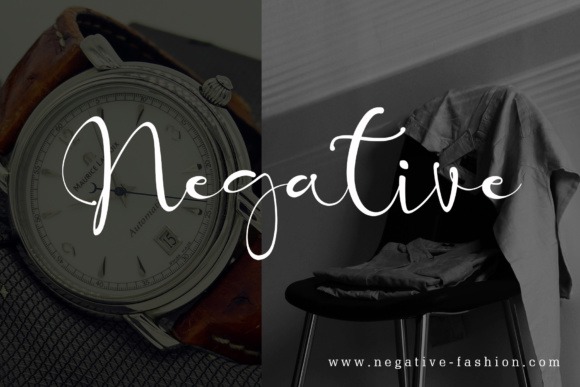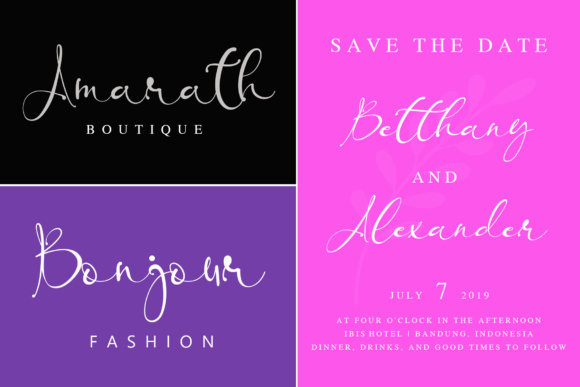
Banggar Font
Banggar Signature is a font with a simple and classy look. Banggar comes in a regular and slant version.
Banggar looks classy, readable, elegant, stylish, catchy and is absolutely easy to use.
Banggar Signature is a great choice for watermark on photography, signatures or signature logo designs, album covers, business cards, quotes and many other design projects.